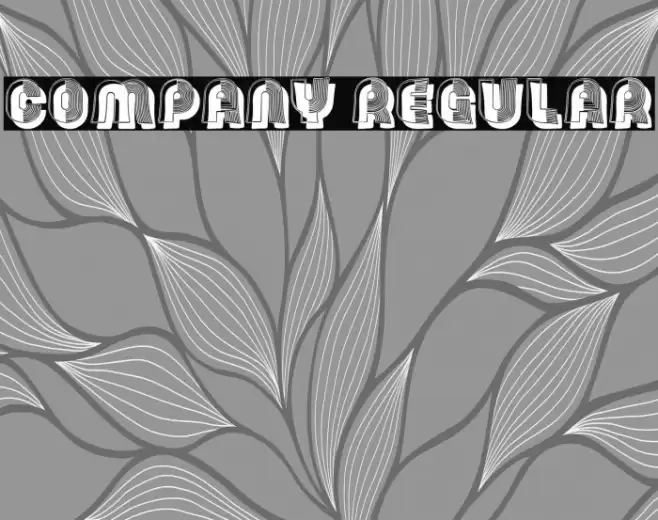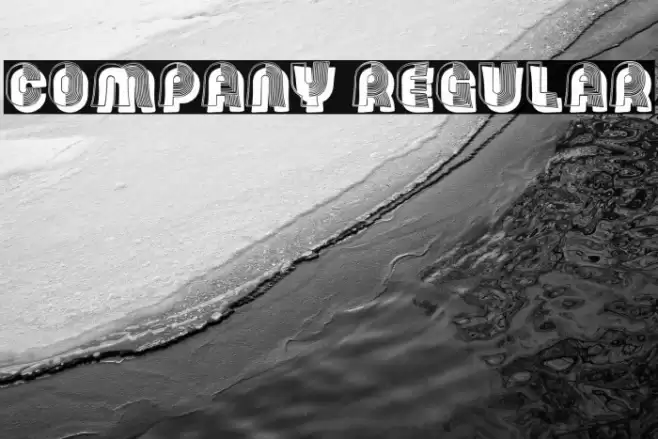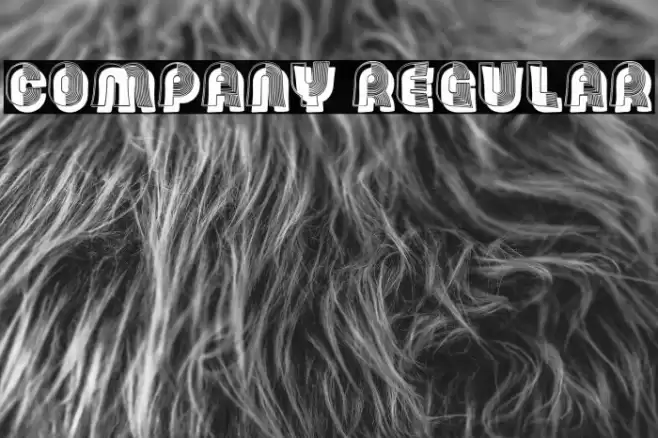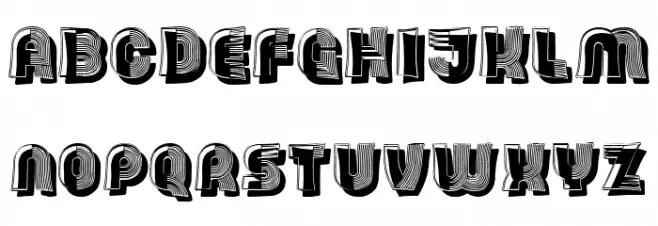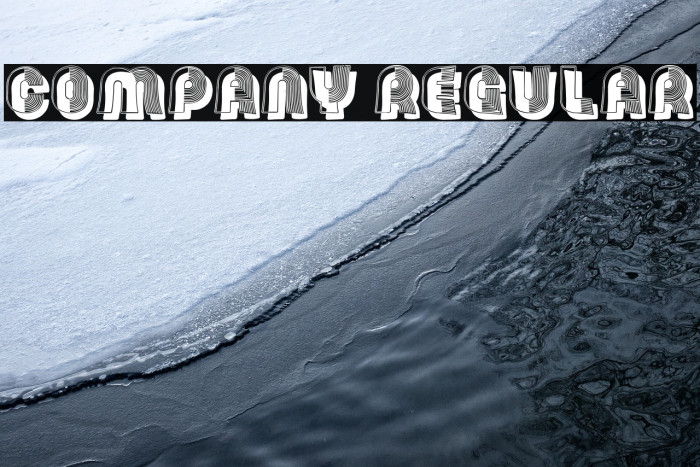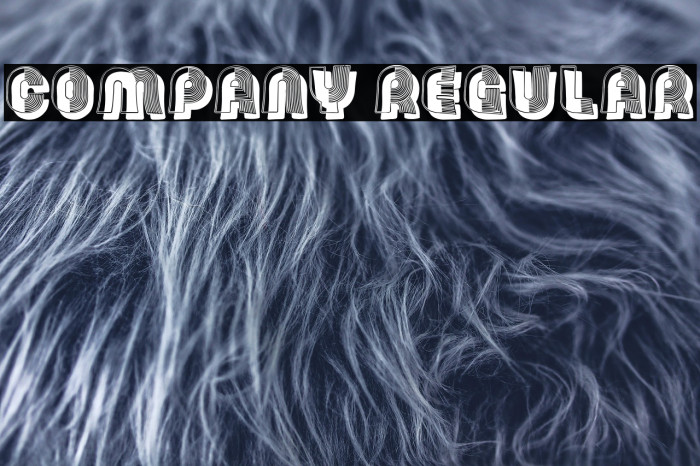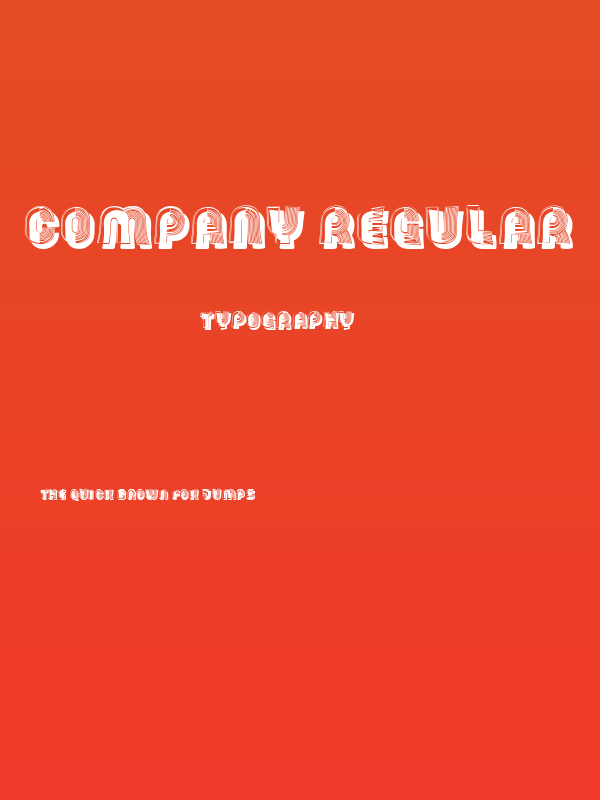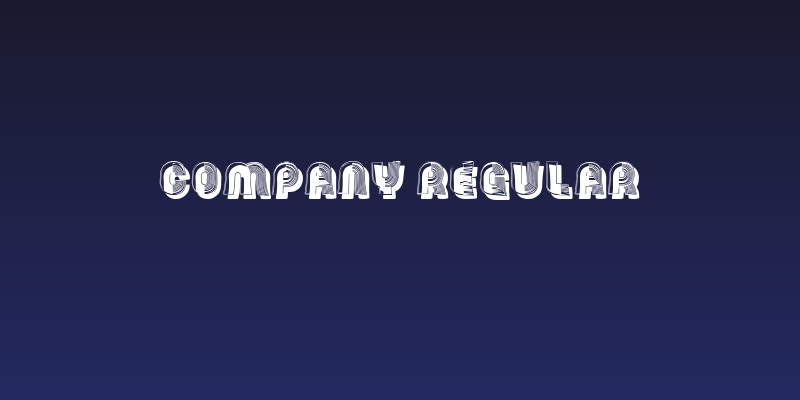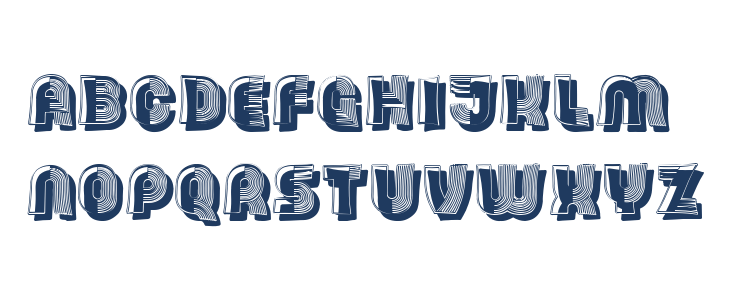
Company Regular Font
Company Regular Description
This font features a bold, decorative style with a three-dimensional effect created by layered lines and shadows. The uppercase letters are particularly striking, with thick strokes and intricate detailing that give a sense of depth and movement. The lowercase letters maintain the same boldness and decorative flair, ensuring consistency across the typeface. The numbers and special characters are designed to match the overall aesthetic, making this font suitable for eye-catching designs. Its unique appearance makes it ideal for projects that require a strong visual impact.
A bold, decorative font with a three-dimensional effect and intricate detailing from Uncategorized fonts.
- Font: Company Regular
- Proposed Projects: Ideal for posters, logos, branding, and any design requiring a strong visual impact.